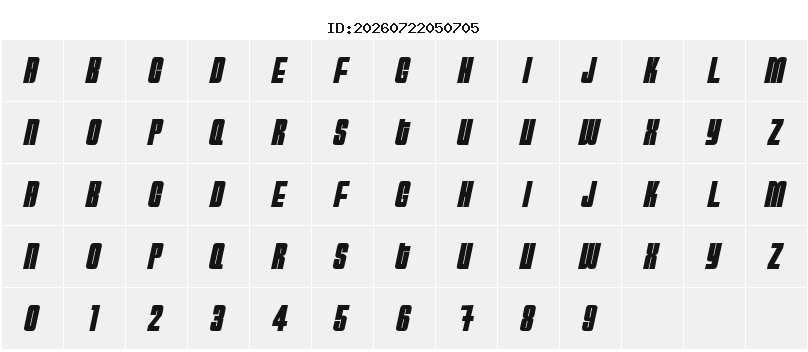
HydrogenBomb Preview
• Font Name: HydrogenBomb
About HydrogenBomb.ttf
HydrogenBomb.ttf is a modern, elegant sans-serif font designed for ultimate readability and visual harmony. Perfect for branding, headlines, web design, and print materials.